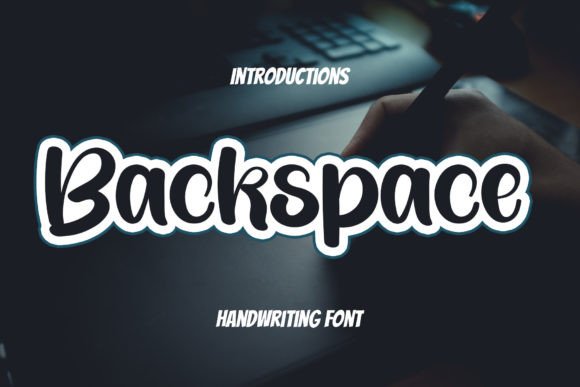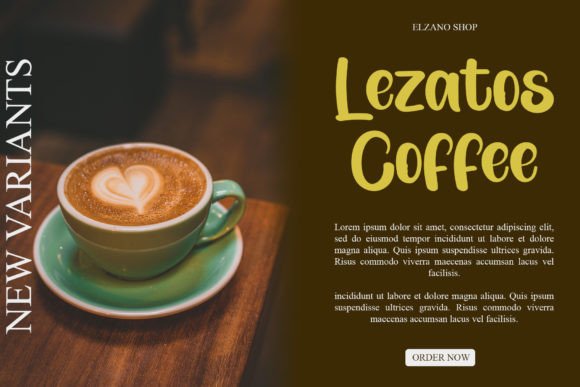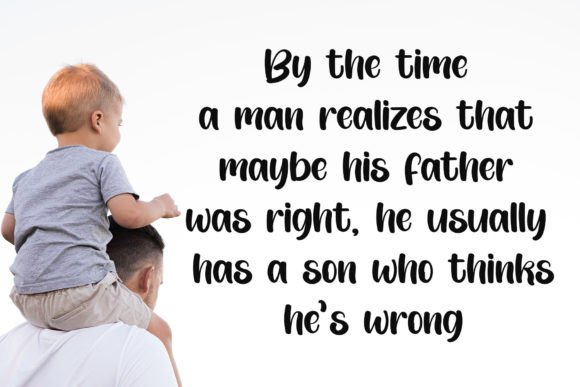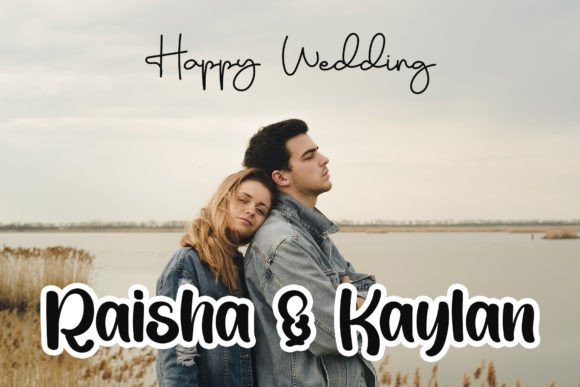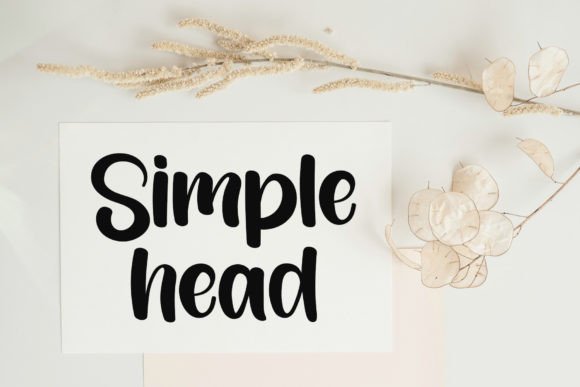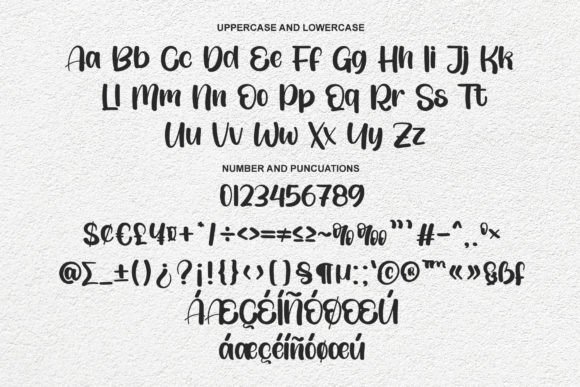
About Backspace Font
Backspace font is a beautiful handwritten font known for its clear and well-rounded letters. This font is easy to read and looks great in many kinds of designs. It works well for those who want to add a personal touch without losing elegance.
Clear and Friendly Letters
The font’s letters have smooth edges and a natural flow. Each character is carefully shaped to feel friendly and balanced. This makes Backspace font a great choice for designs that need a neat handwritten look that is both simple and stylish.
Many Ways to Use Backspace Font
Because it is so versatile, Backspace font fits perfectly in many projects, such as:
Wedding invitations and greeting cards
Brand logos and business cards
Social media posts and posters
Product packaging and labels
Its flexible style means it can match both modern and classic designs easily.
Adding Warmth to Your Designs
Using Backspace font helps you create designs that feel warm and personal. The handwritten style adds emotion and makes your work stand out. Whether you are making something professional or for fun, this font will help your ideas shine.
Summary
In short, Backspacefont is a clear and friendly handwritten font. Its smooth, rounded letters make it perfect for invitations, branding, social media, and many other design needs. This font brings a neat, personal style to your projects.